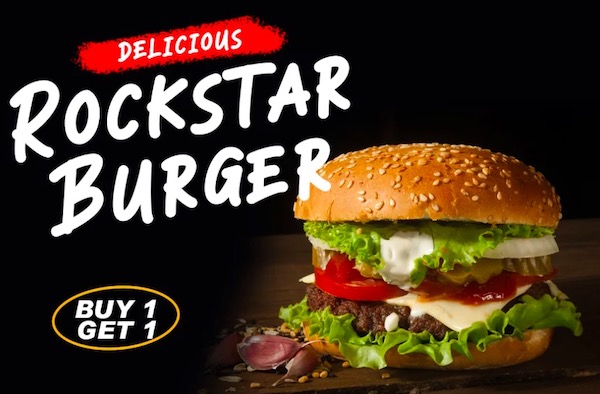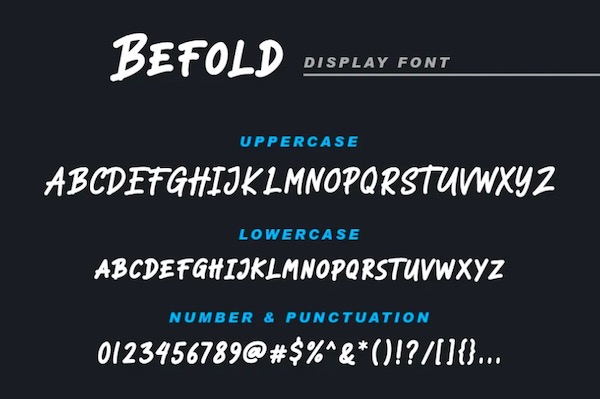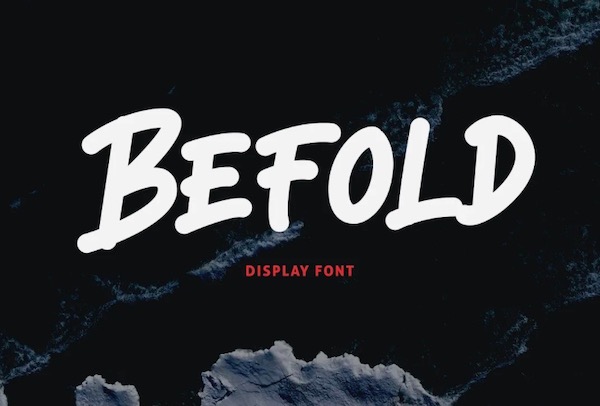
Introducing Befold Font. It’s an elegant Display Font that was created and shared by Weape Studio. A modern handwriting font along with all caps powerful style. You can combine a unique lowercase & uppercase, so it looks like natural handwriting.
Befold font is very perfect for posters, apparel, title, logo, signature, branding, band, photography, ad banner, product packaging, social media post, book cover, handwritten quotes, advertising, numerals, and much more
Befold Display Font